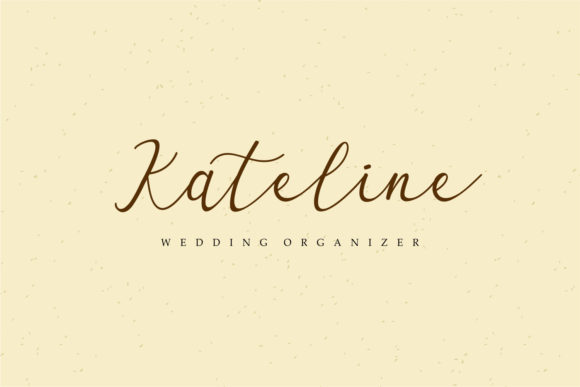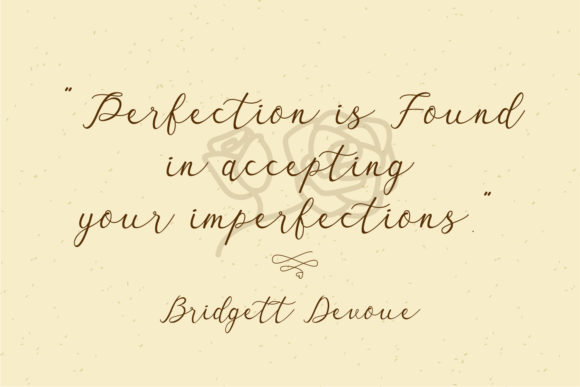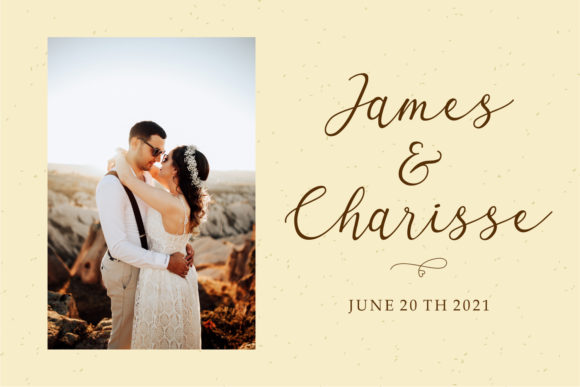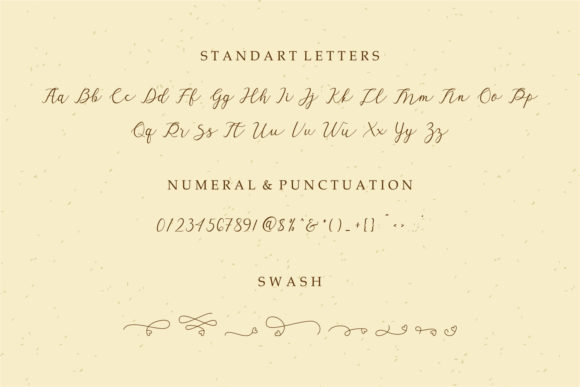
Hay Git Font: The Romantic and Sweet Calligraphy Typeface for Designers and Crafters
Are you looking for a font that exudes romance, sweetness, and elegance? Look no further than Hay Git Font! This beautiful calligraphy typeface is perfect for designers and crafters who want to add a touch of whimsy and sophistication to their projects. In this article, we’ll dive into the features and uses of Hay Git Font, and explore how it can elevate your designs to the next level.
What is Hay Git Font?
Hay Git Font is a romantic and sweet calligraphy typeface that features characters that dance along the baseline. Its casual, yet elegant touch makes it perfect for a wide range of design projects. The font’s unique and flowing script style is sure to capture the attention of your audience and leave a lasting impression.
Key Features of Hay Git Font
- Romantic and Sweet: Hay Git Font is designed to evoke feelings of love, warmth, and sweetness. Its elegant and flowing script style makes it perfect for designs that require a touch of romance.
- Casual yet Elegant: The font’s casual touch makes it perfect for informal designs, while its elegant style ensures that it remains sophisticated and refined.
- Versatile: Hay Git Font can be used for a wide range of design projects, from logos and wedding invitations to headings, t-shirts, and more.
- Unique Characters: The font’s characters dance along the baseline, creating a unique and eye-catching effect that sets it apart from other fonts.
Uses of Hay Git Font
Hay Git Font is an incredibly versatile font that can be used for various purposes, including:
- Logos: Create a beautiful and memorable logo for your business or brand with Hay Git Font.
- Wedding Invitations: Add a touch of romance and elegance to your wedding invitations with this stunning calligraphy font.
- Headings: Use Hay Git Font to create eye-catching headings for your website, blog, or social media posts.
- T-Shirts: Design unique and stylish t-shirts with Hay Git Font that’s sure to turn heads.
- Letterhead: Create professional-looking letterheads with Hay Git Font that’s perfect for businesses and individuals.
- Signage: Use Hay Git Font to create eye-catching signage for your business, event, or exhibition.
- Labels: Design beautiful and elegant labels with Hay Git Font that’s perfect for product packaging or labeling.
- News: Use Hay Git Font to create engaging and stylish news articles, blog posts, or editorials.
- Posters: Create stunning posters with Hay Git Font that’s perfect for advertising, promotion, or decoration.
- Badges: Design unique and stylish badges with Hay Git Font that’s perfect for events, conferences, or meetings.
Why Choose Hay Git Font?
With so many fonts available, why choose Hay Git Font? Here are just a few reasons:
- Unique Style: Hay Git Font has a unique and distinctive style that’s sure to set your designs apart from the rest.
- Elegant and Refined: The font’s elegant and refined style makes it perfect for designs that require a touch of sophistication.
- Easy to Read: Despite its elegant style, Hay Git Font is easy to read and understand, making it perfect for body text and headings.
- High-Quality: Hay Git Font is a high-quality font that’s designed to produce crisp and clear results, even at small sizes.
In conclusion, Hay Git Font is a romantic and sweet calligraphy typeface that’s perfect for designers and crafters who want to add a touch of elegance and sophistication to their projects. With its unique style, elegant touch, and versatility, Hay Git Font is an excellent choice for a wide range of design projects. Whether you’re creating logos, wedding invitations, headings, or more, Hay Git Font is sure to impress.